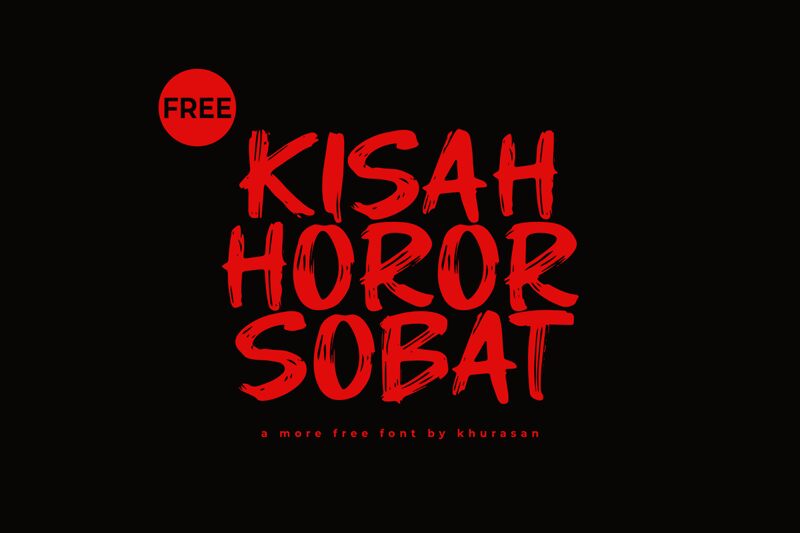
Kisah Horor Sobat
Kisah Horor Sobat font, designed by Khurasan, captivates with its striking brush style that exudes a raw, artistic flair. The bold strokes and dynamic forms convey a sense of movement and energy, making it perfect for eye-catching headlines or branding that seeks to evoke emotion. Its unique character combines both an unsettling charm and an adventurous spirit, ideal for designs aimed at the horror genre or any creative project that wishes to push boundaries.
Whether used in posters, book covers, or event graphics, Kisah Horor Sobat stands out as an authentic choice for captivating attention and leaving a lasting impression. This font transforms ordinary text into a visual story, ensuring your design speaks boldly and uniquely.